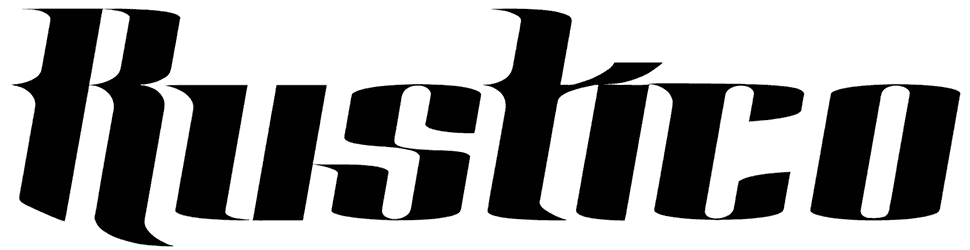
Rustico Font
Designed byJohn Gauthier
To be honest, we can’t consider a better techno font than Rustico, which is designed with a sense of jauntiness, authenticity, drama, and confidence.
Aside from the lack of numbers, this gangster font can really revolutionize your graphic content, including movie posters, magazines, branding projects, and product labels. So we really invite you to try it in your creative ideas and take them to a higher level of quality.